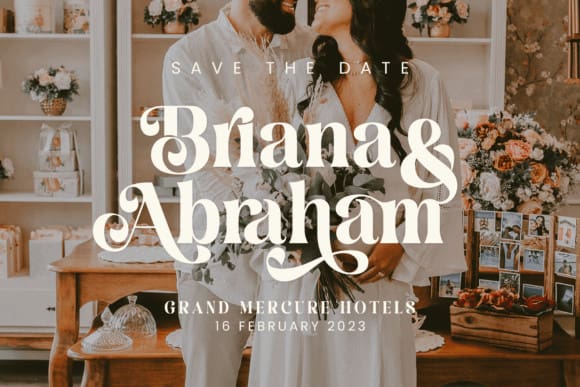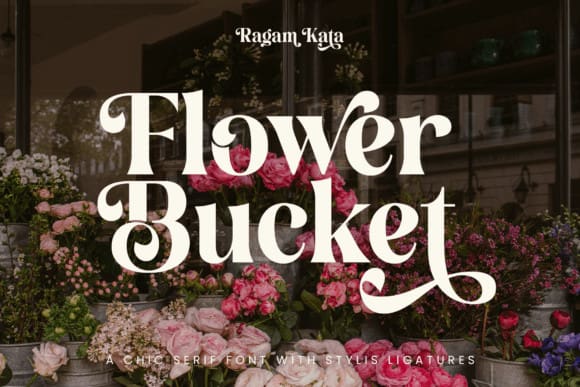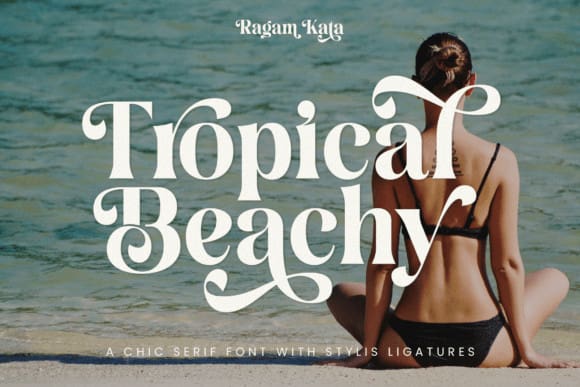
Tropical Beachy Font
Tropical Beachy Font is a classic retro-themed serif font that embodies a tropical and exotic beach feel. With the addition of a stylish ligature, this font gives a unique and eye-catching feel to your design project.
Tropical Beachy is also equipped with a variety of stylish ligatures, which give a creative and modern touch to the appearance of the letters. This ligature allows you to create unique and interesting letter combinations, making this font suitable for logo designs, brand identity, and other design projects that want to be different and exclusive.